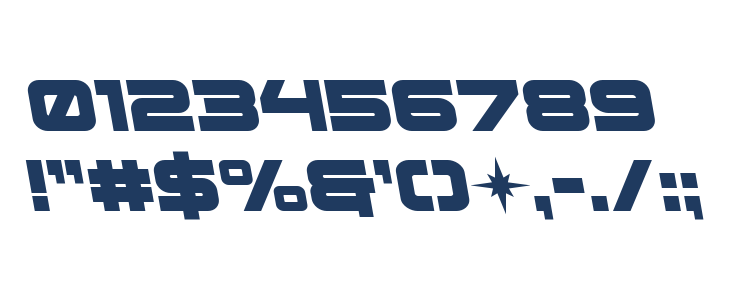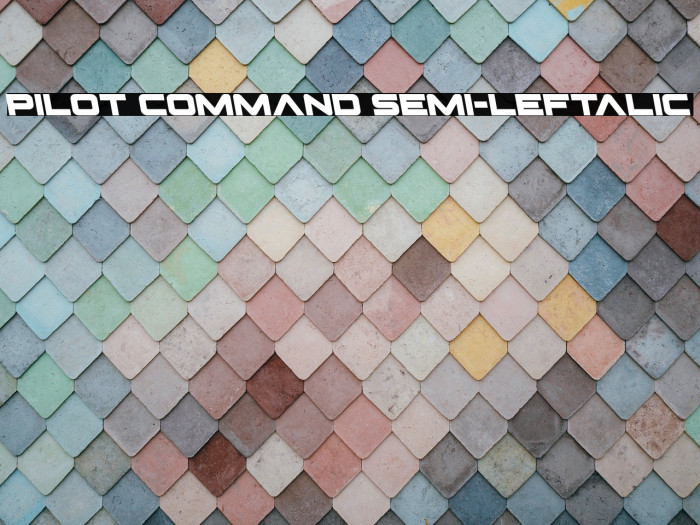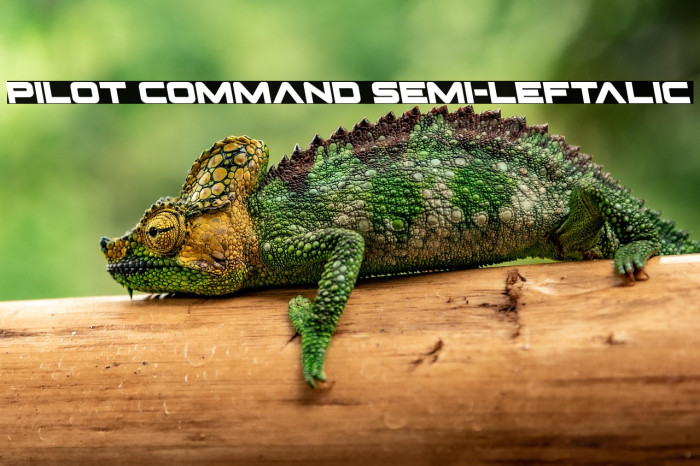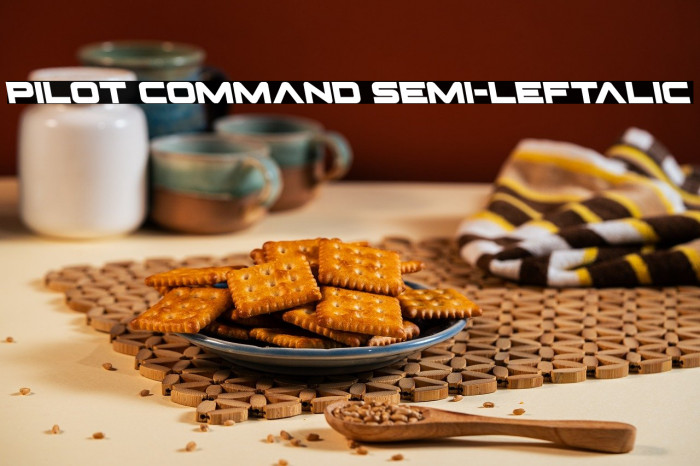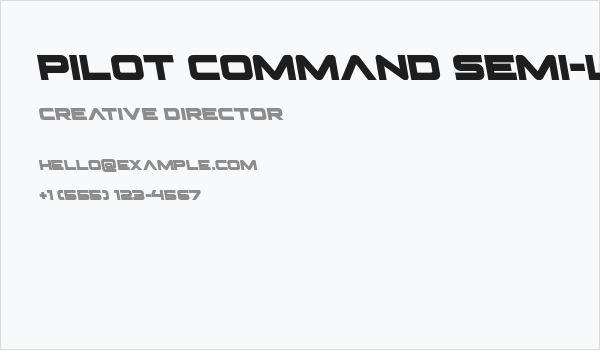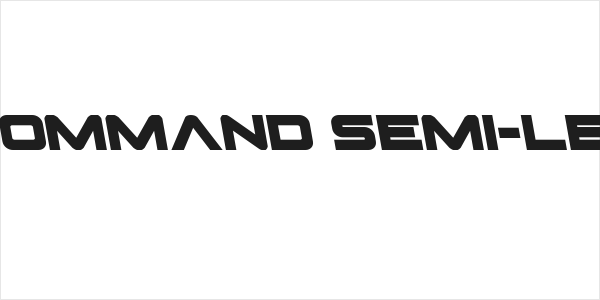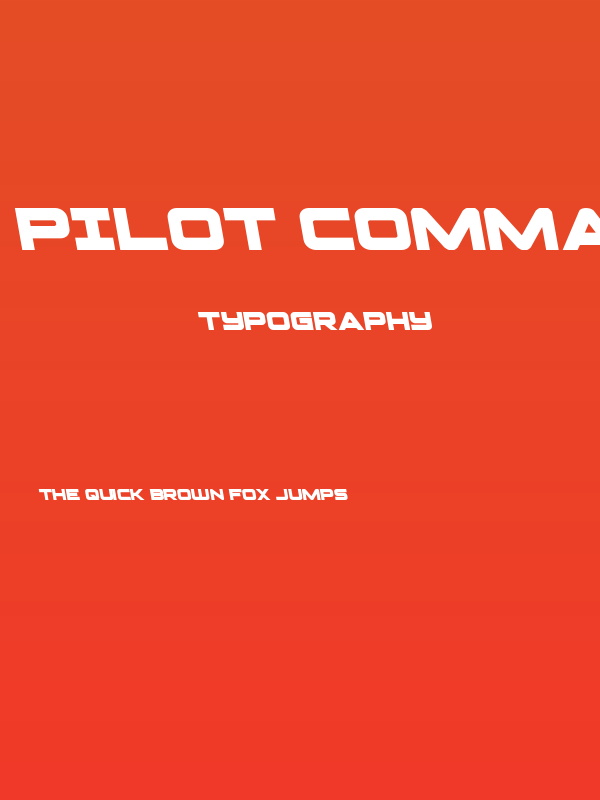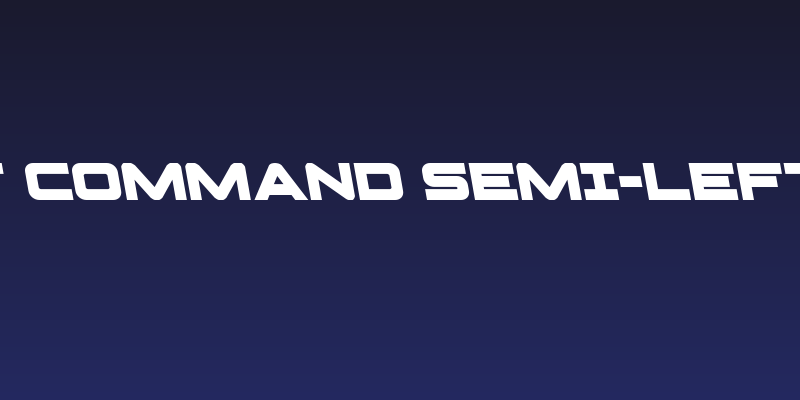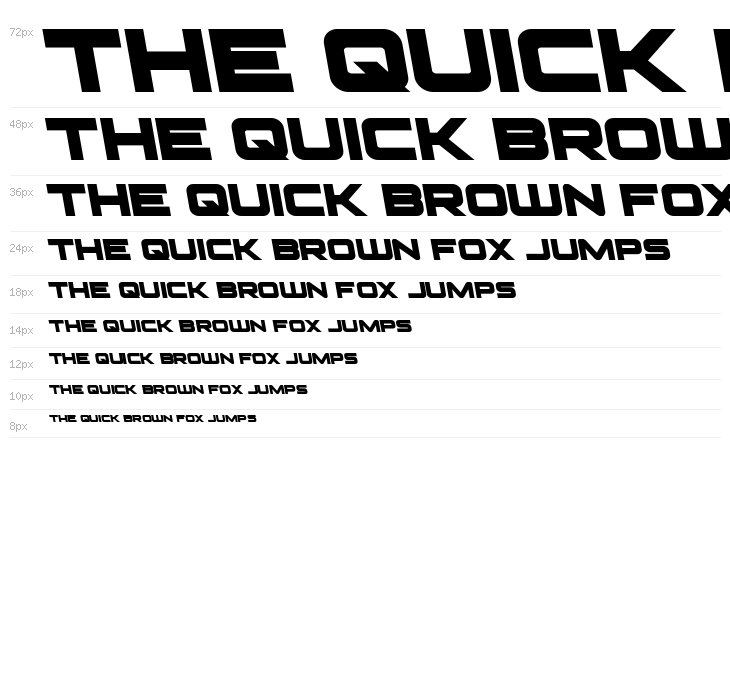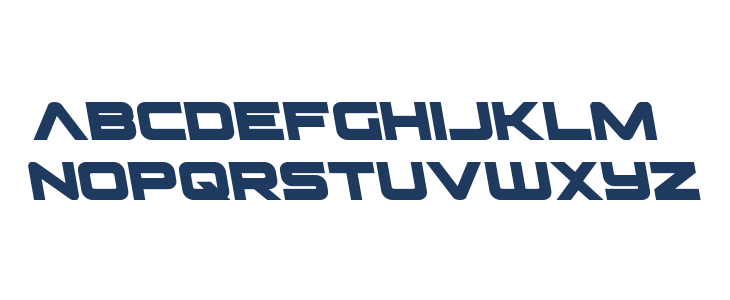
Pilot Command Semi-Leftalic Font
Pilot Command Semi-Leftalic Description
This font features a bold and dynamic style with a futuristic and angular design. The characters are slightly slanted, giving a sense of motion and speed. The strokes are thick and consistent, providing a strong presence. The geometric shapes and sharp edges contribute to a modern and technological feel, making it suitable for projects that require a cutting-edge and innovative look. The font maintains a uniform width across characters, ensuring readability while adding a unique flair with its distinct angles.
| Proposed Projects | Ideal for technology branding, sports team logos, video game titles, and sci-fi themed designs. |